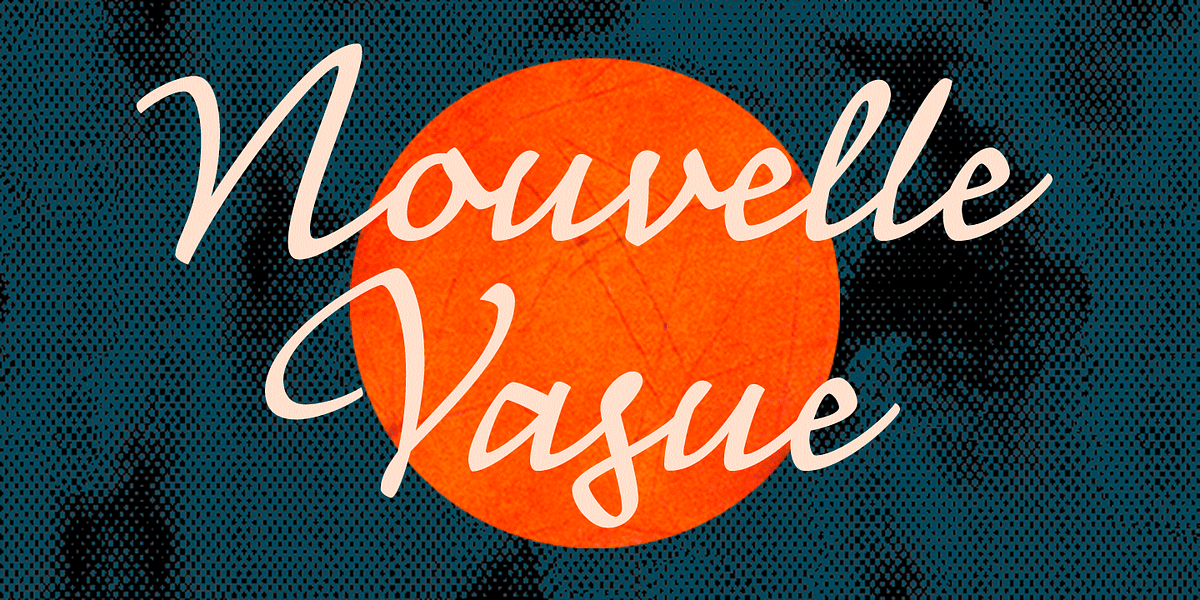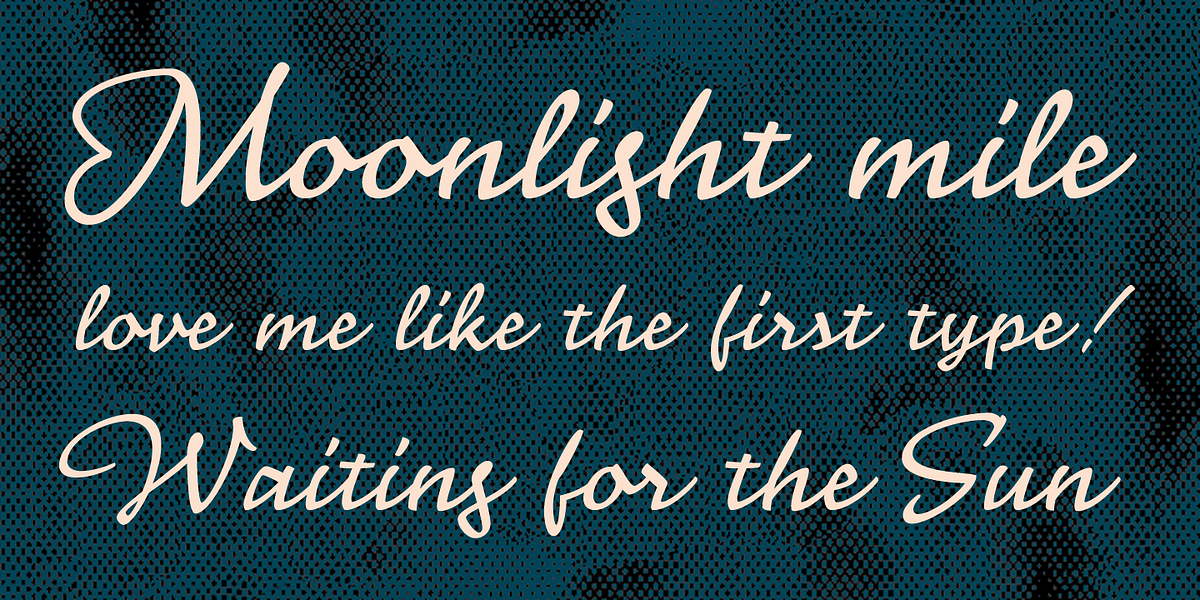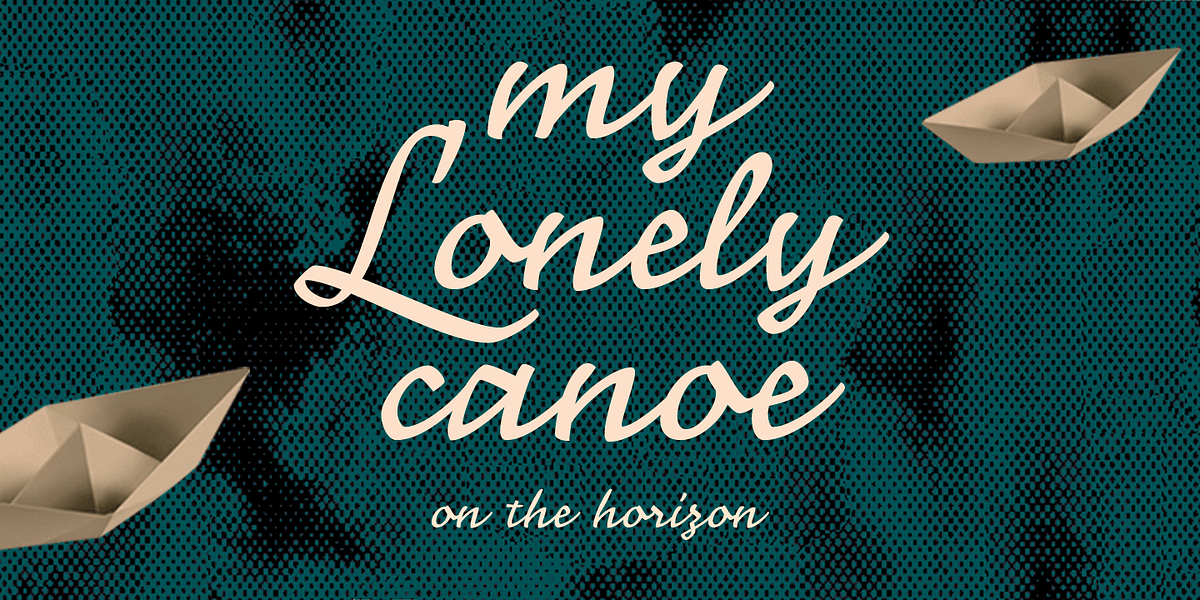
Nouvelle Vague
Nouvelle Vague is a display script typeface characterized by its steady rhythm and dynamic uppercase initials. Its design draws inspiration from French advertising scripts of the 1950s, specifically Roger Excoffon’s Mistral. The font prioritizes simple letter connections over complex OpenType features to authentically capture the graphic impact of its vintage influences.